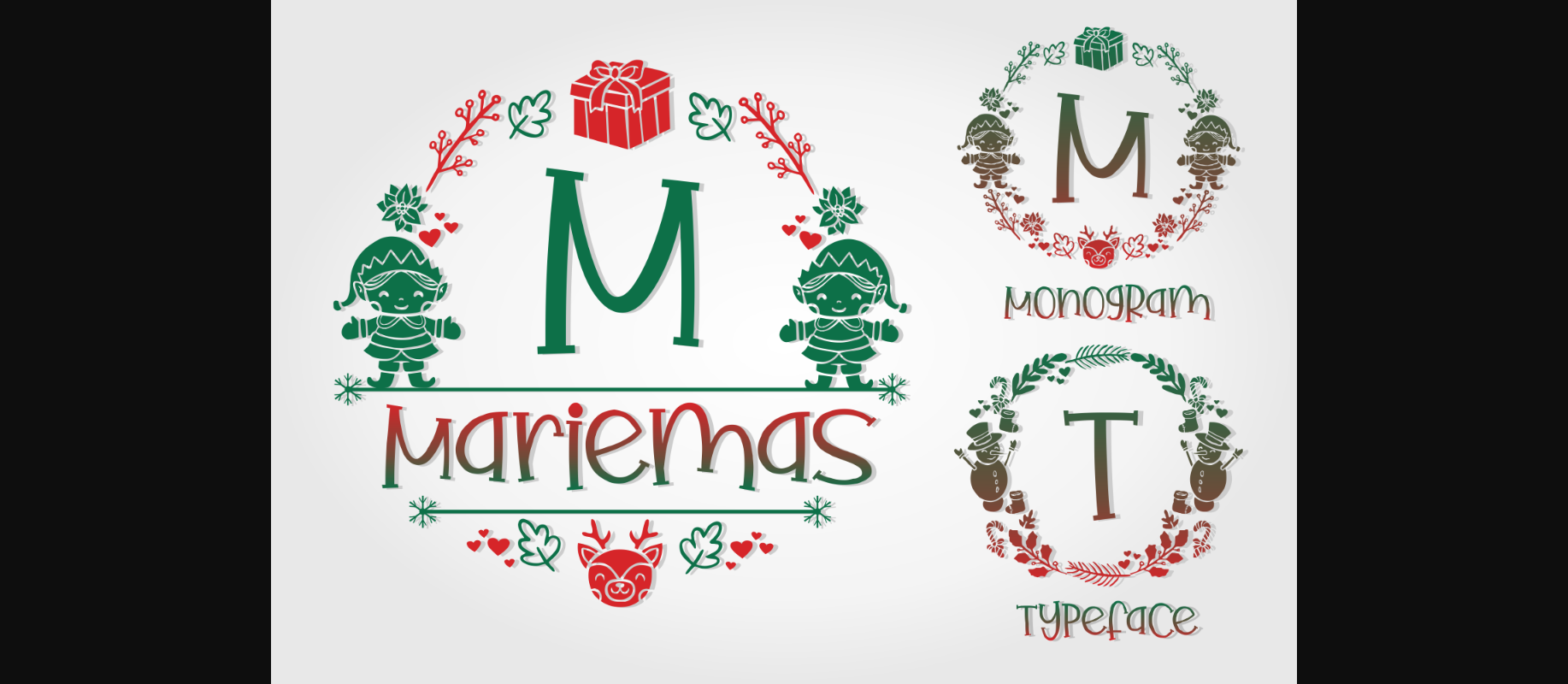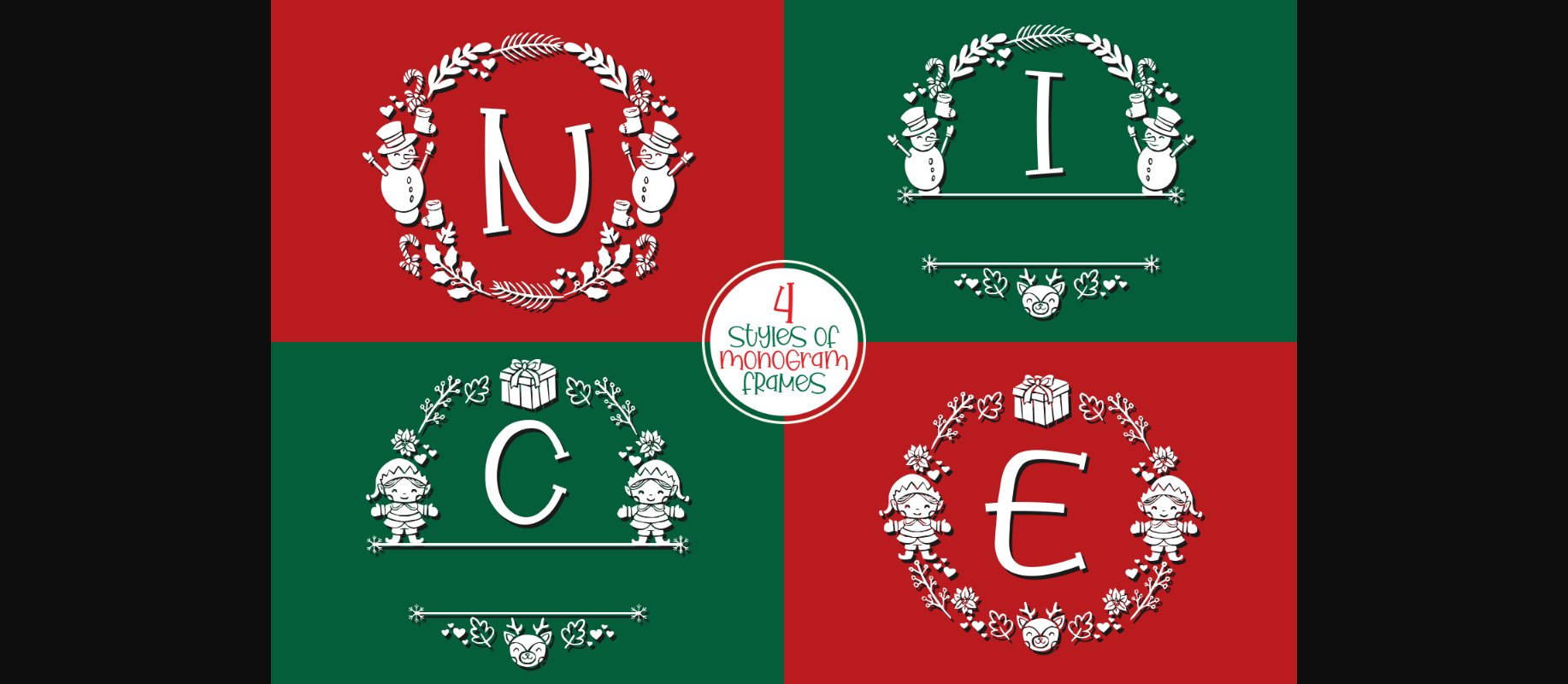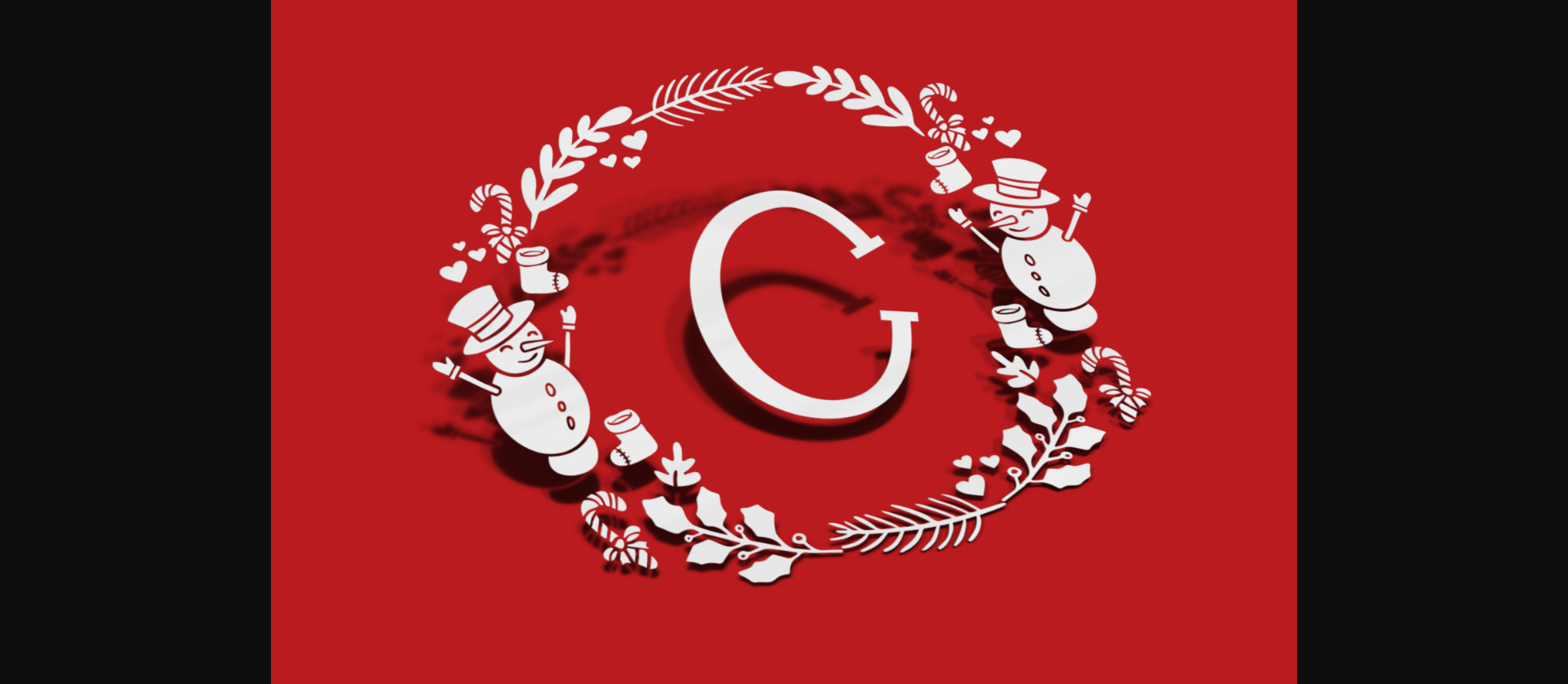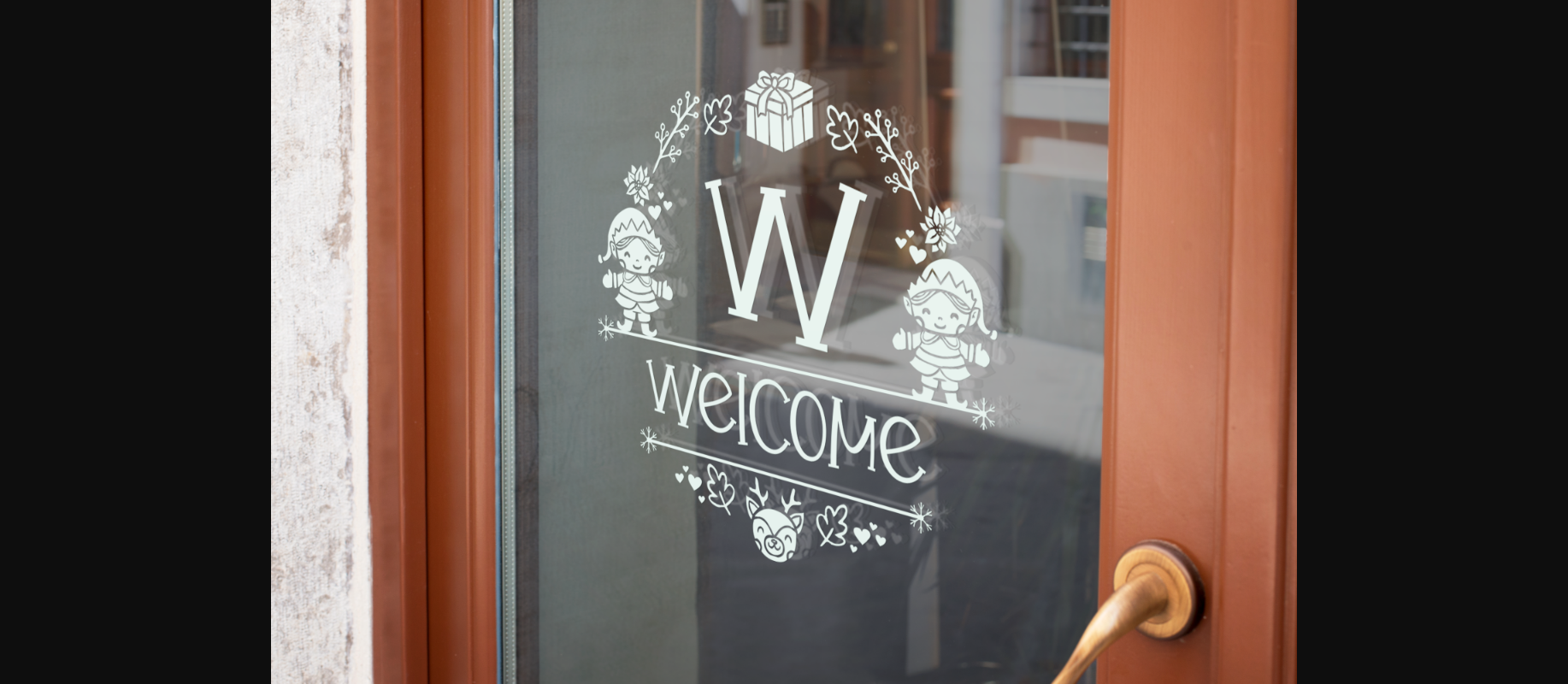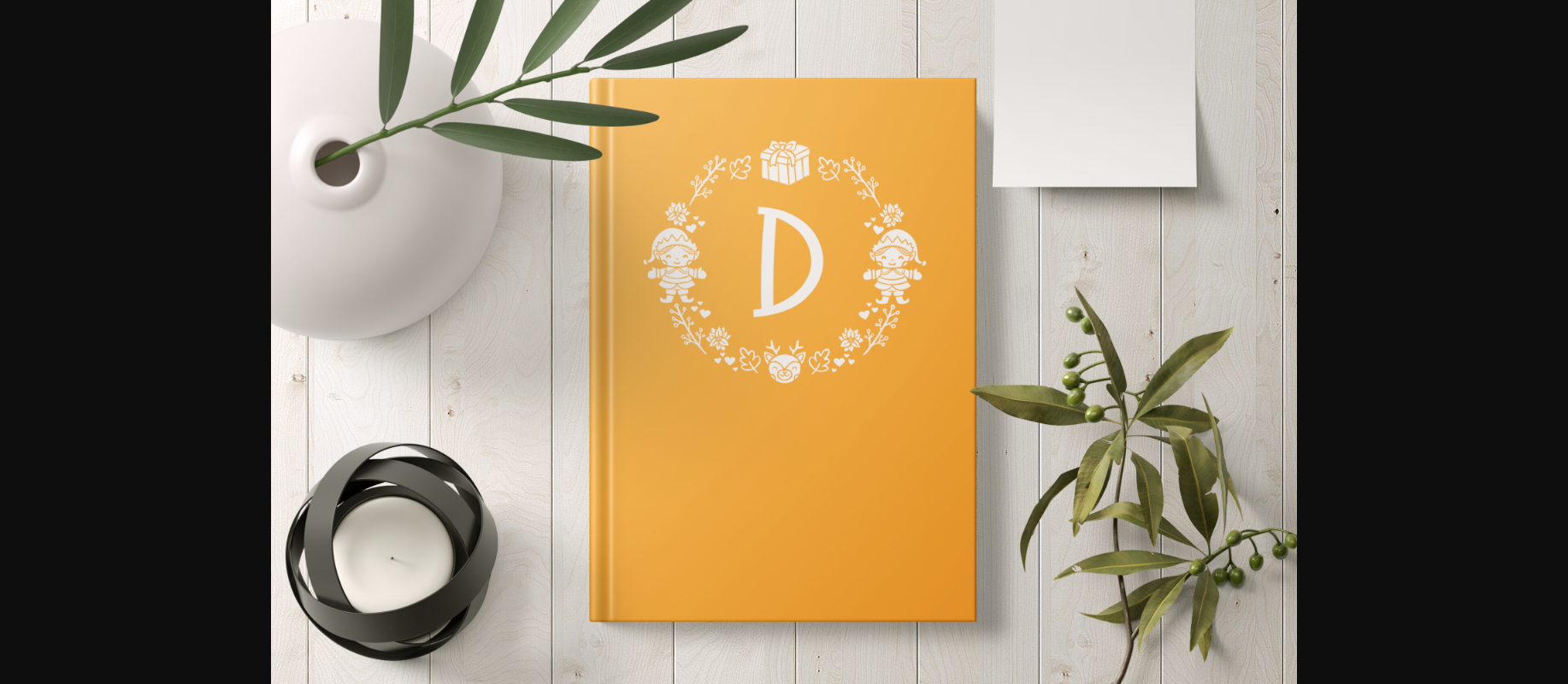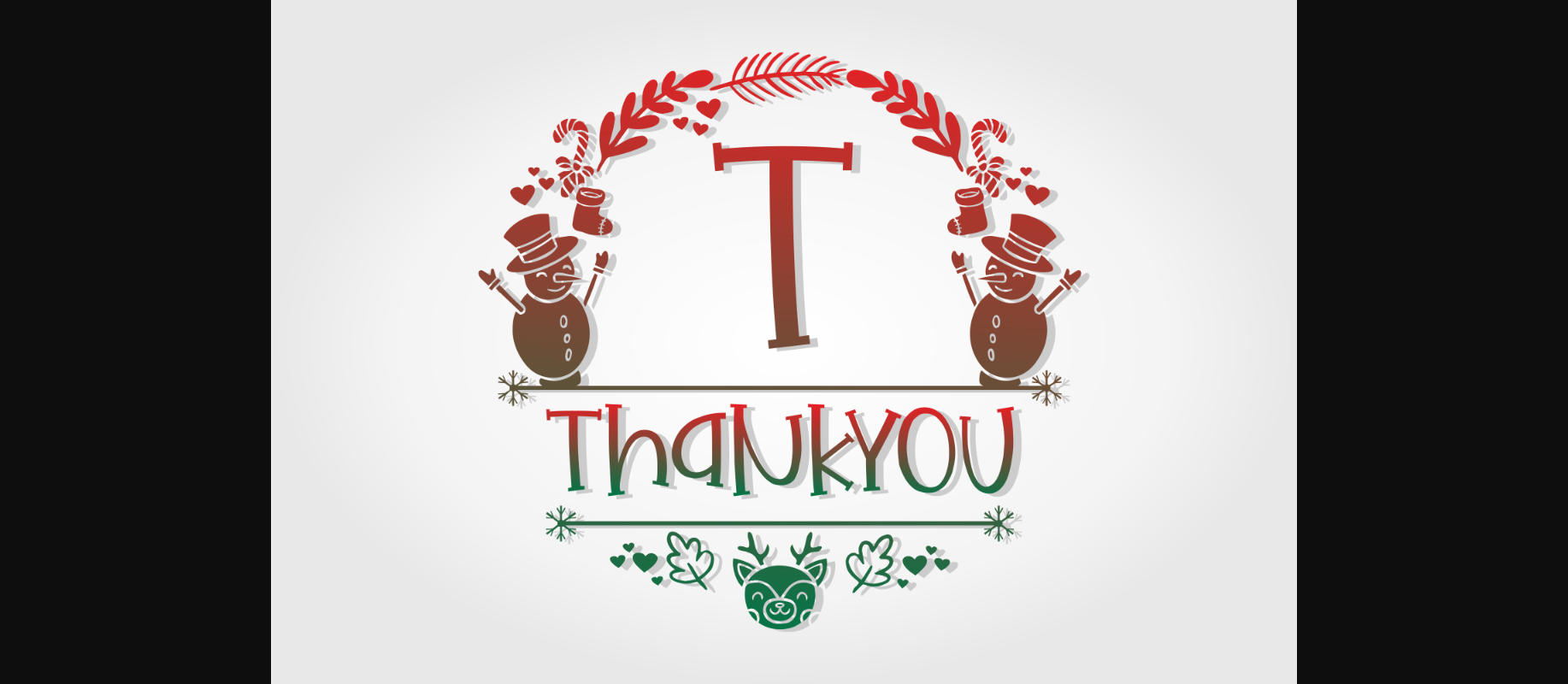
Mariemas Font
About Mariemas Font
Mariemas is a festive and very detailed decorative font. It is PUA encoded which means you can access all glyphs and swashes with ease!